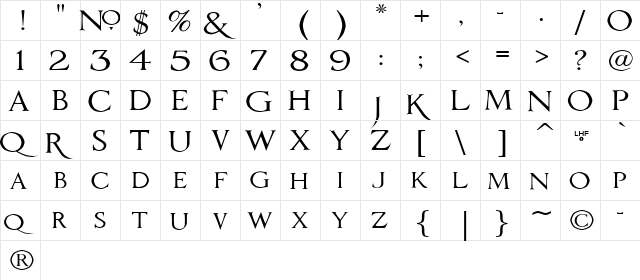
LHF Romana Classico Regular
Design Context for LHF Romana Classico Typeface
LHF Romana Classico wears its vintage influences proudly, with letterforms that recall mid-century signage, classic packaging, and nostalgia-driven design.
Font Pairing: Combine LHF Romana Classico with a simple slab or neutral sans — period-accurate companions reinforce the vintage feel without competing for attention.
Pro Tip: Use LHF Romana Classico for headlines and pull quotes rather than body copy — its personality is best appreciated in short, focused bursts.